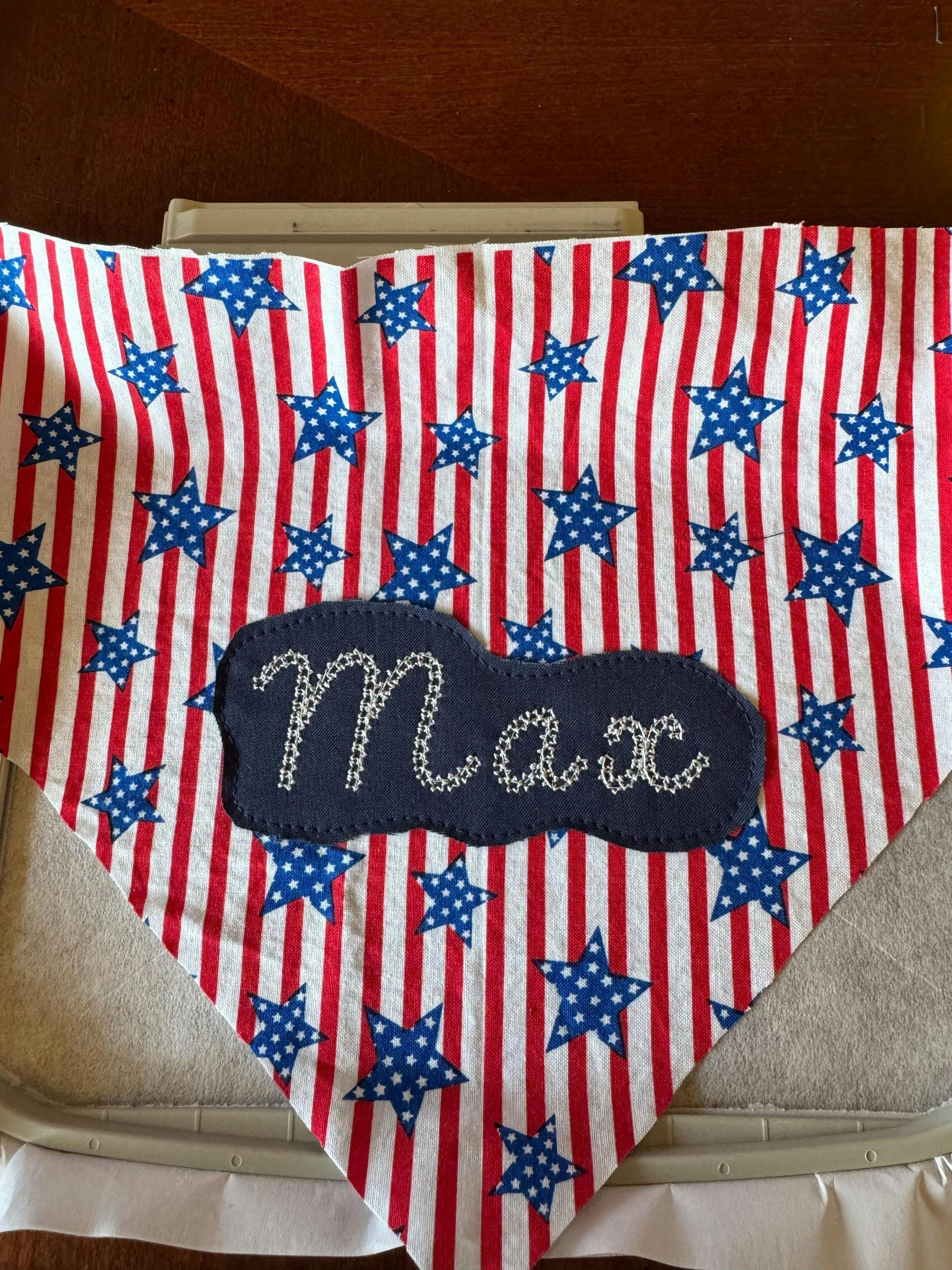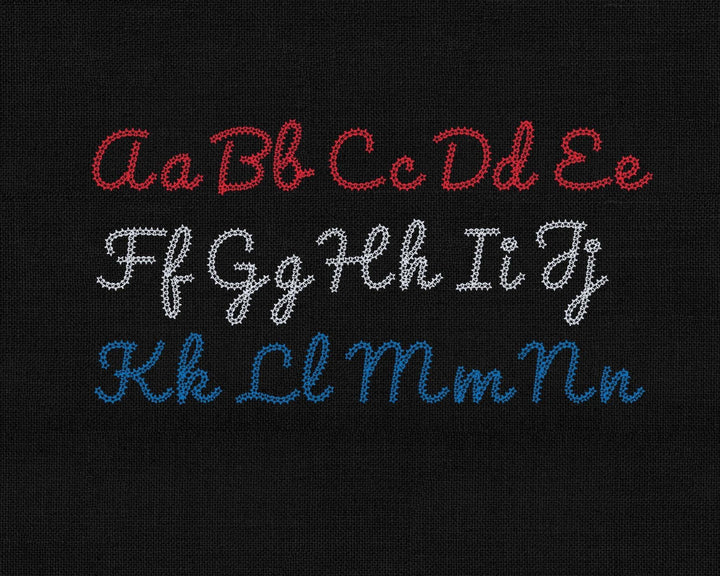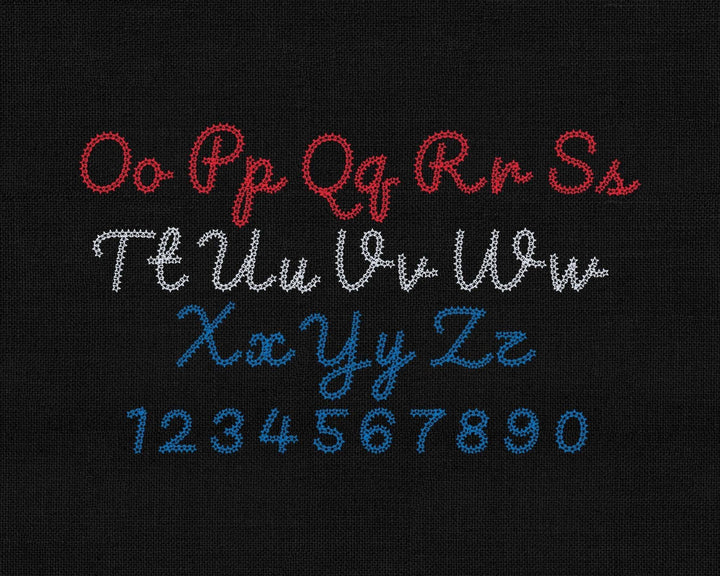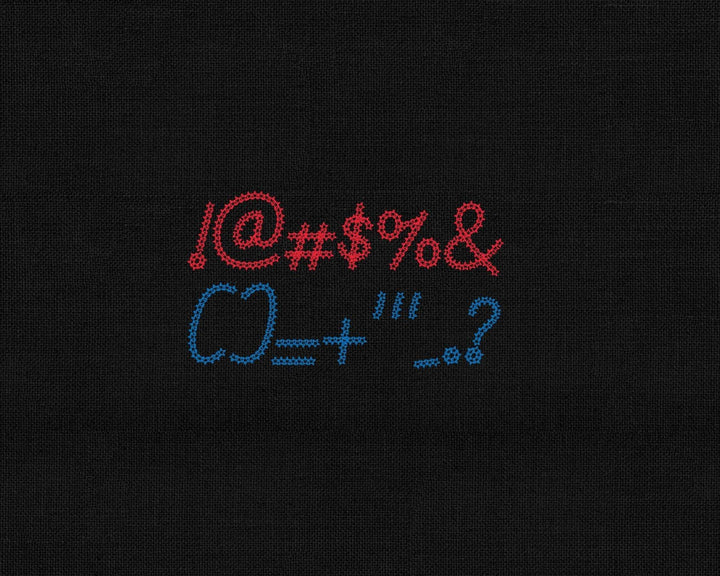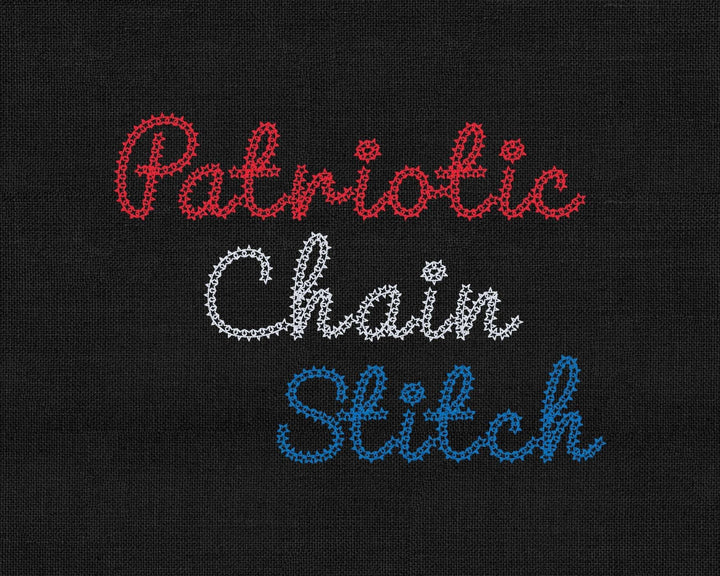
Photograph of Patriotic Chain Stitch embroidery font
Photograph of Patriotic Chain Stitch embroidery font alphabet
Patriotic Chain Stitch Embroidery Font
Introducing the epitome of patriotic elegance: our exquisite Patriotic Chain Stitch Embroidery font. Meticulously hand-digitized, this high-quality font captures the essence of national pride with its stunning star motif. Every Patriotic Chain Stitch tells a story, weaving a tapestry of American heritage and passion. Elevate your embroidery projects to new heights with this timeless font, designed to add a touch of sophistication and patriotism. Unleash your creativity and let the stars shine on your designs. Discover the artistry of our Patriotic Chain Stitch Embroidery Font today!
Stitch Type: Running Stitch